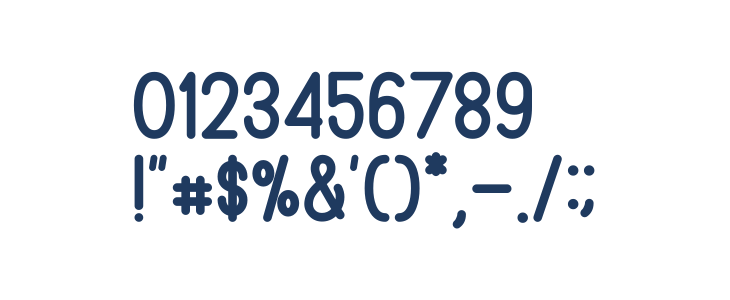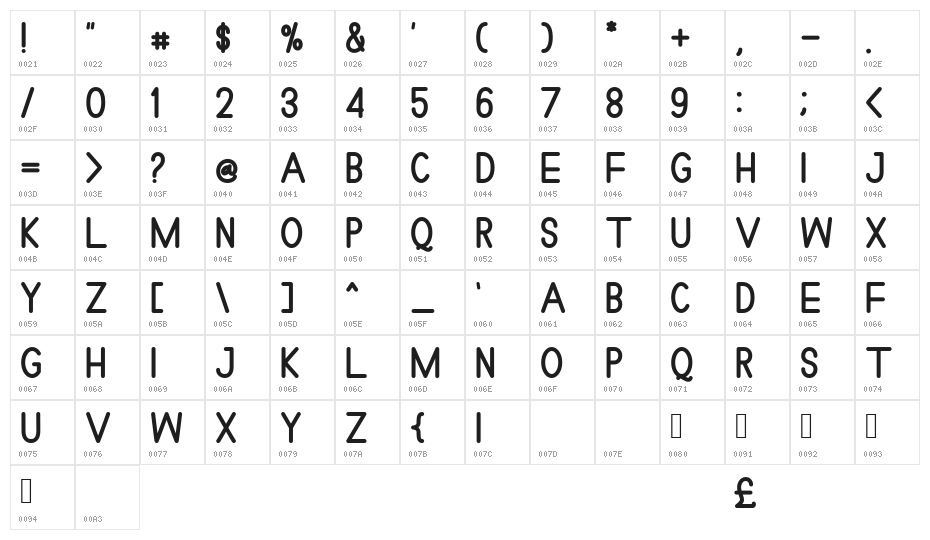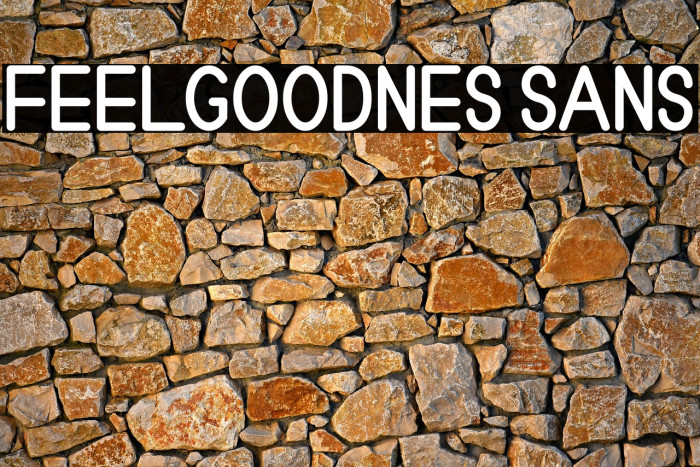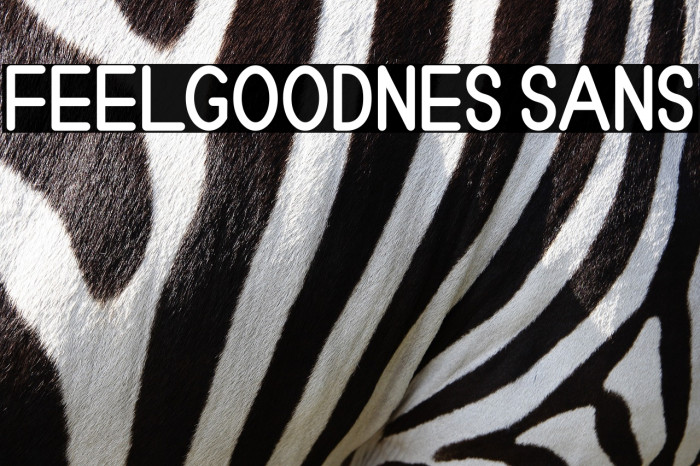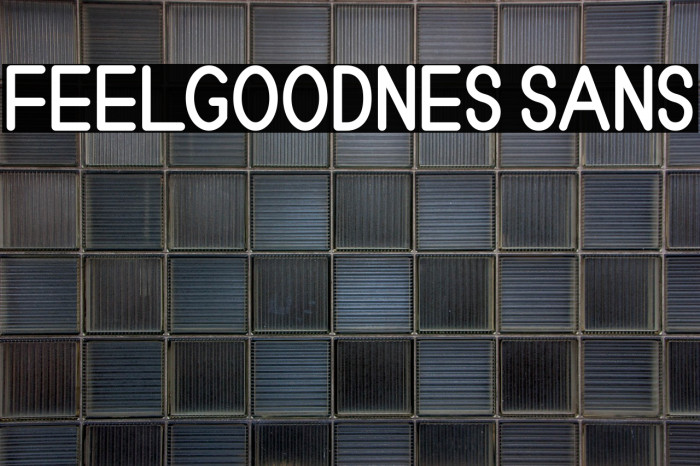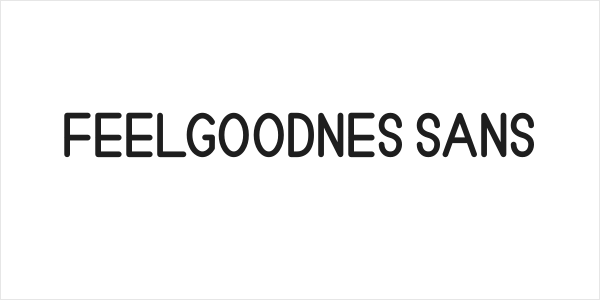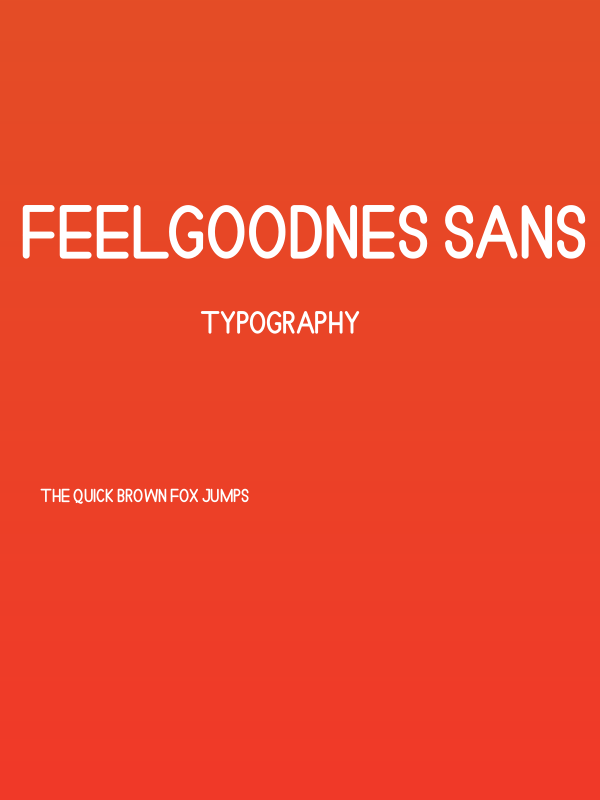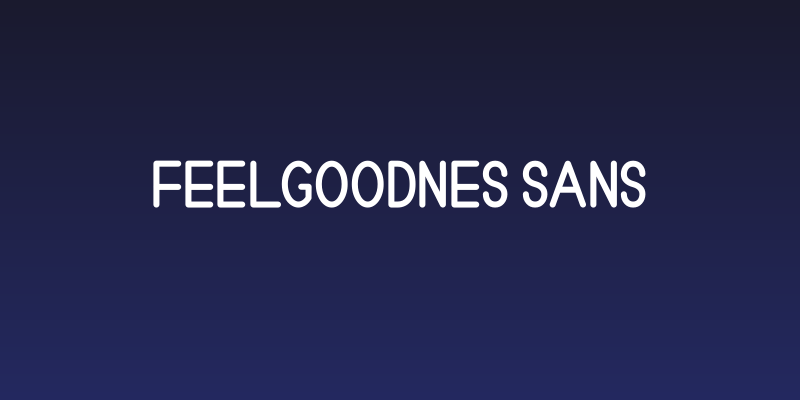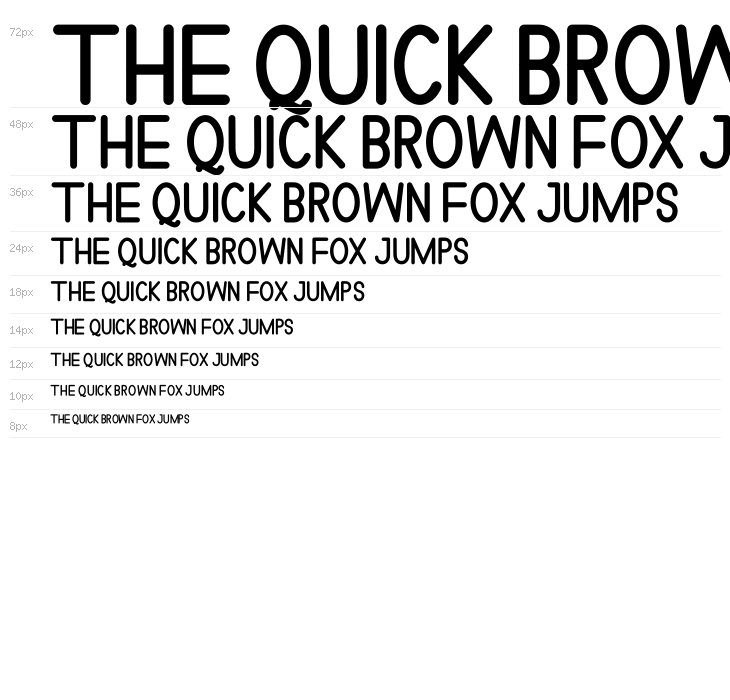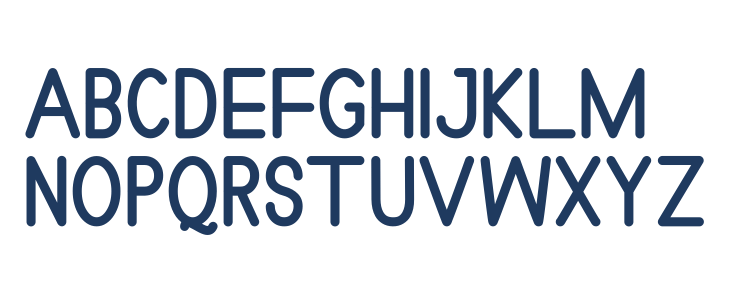
This font features a clean and modern sans-serif style with rounded edges that give it a friendly and approachable appearance. The characters are evenly spaced, providing a balanced and harmonious look. The uppercase and lowercase letters maintain a consistent height, while the numbers are clear and easy to read. Special characters are well-defined, making this font versatile for various applications. Its simplicity and clarity make it suitable for both digital and print media, ensuring readability across different sizes.